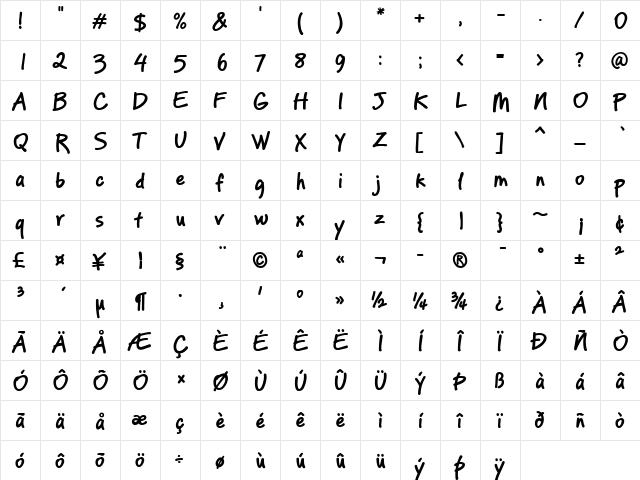
PF Reminder Pro Bold
| Foundry | Parachute蠗orldwide |
| Designer | Panos Vassiliou |
Design Context for PF Reminder Pro Typeface
PF Reminder Pro is a composed and adaptable typeface that performs quietly and consistently across a wide range of design contexts. Its bold stroke weight gives it real presence on the page.